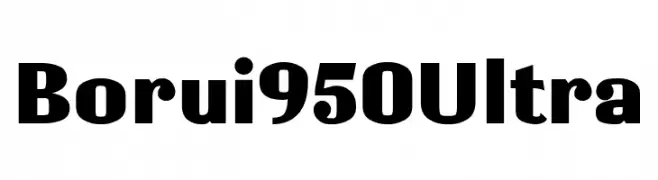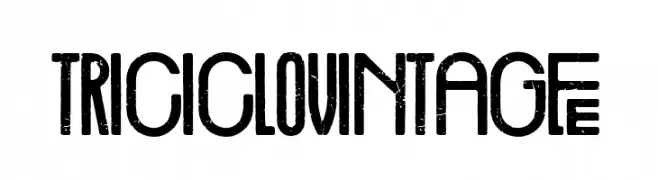
A bold, modern font with thick strokes and a slightly condensed style.
A vintage, distressed font with bold, condensed characters and a nostalgic feel.
A bold, textured font with a vintage, distressed style.
A robust slab serif font with strong, consistent strokes and excellent legibility.
A modern, italicized font with medium contrast and a slightly condensed style.
A bold, wide, and italicized font with a modern and dynamic style.
A bold, italicized font with strong, clean lines and excellent legibility.
A bold, geometric font with thick, block-like characters.
A bold, italicized font with strong strokes and a modern yet classic appeal.
A bold, rounded font with smooth curves and consistent spacing.